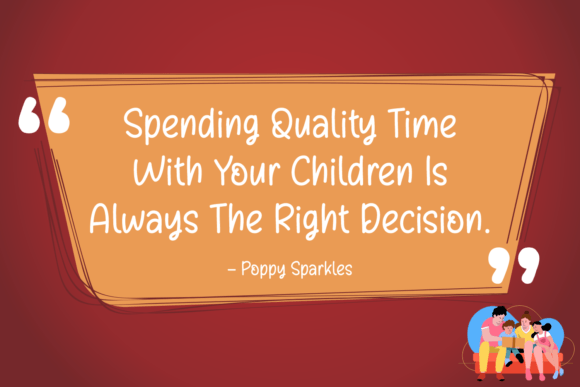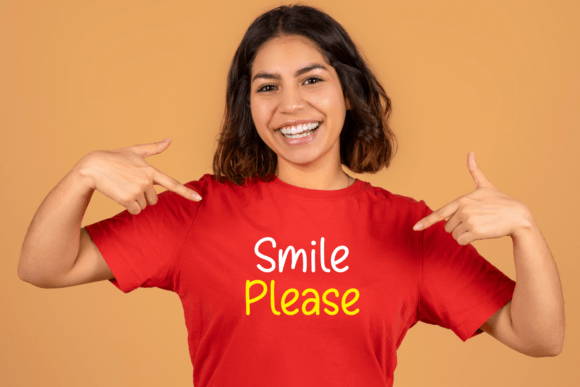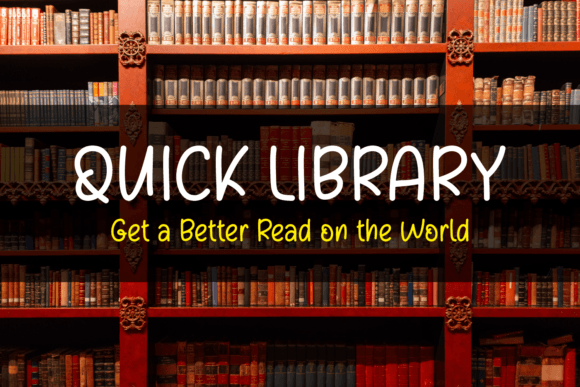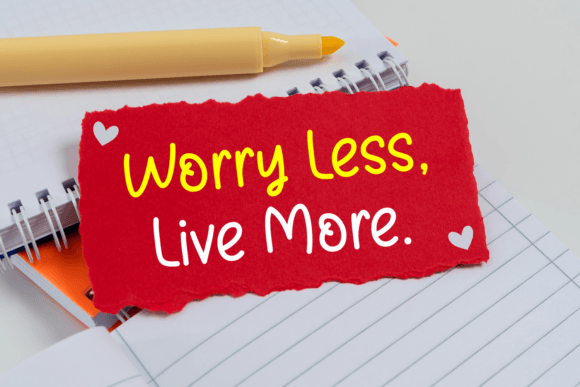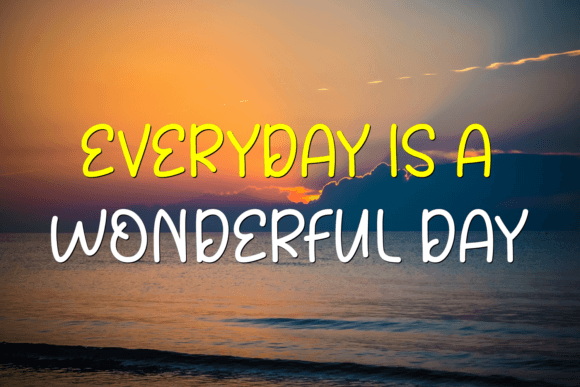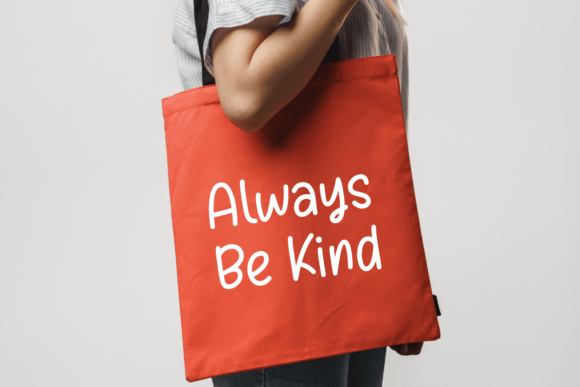
Introduction to Enjoy Quality Time Font
Enjoy Quality Time is a whimsical handwritten font that radiates warmth, friendliness, and authenticity.
Each letter is meticulously crafted with flowing strokes and playful curves, resembling casual handwriting The font exudes a carefree and laid-back vibe, evoking feelings of joy and relaxation.
Key Features of Enjoy Quality Time Font
Why Choose Enjoy Quality Time Font?